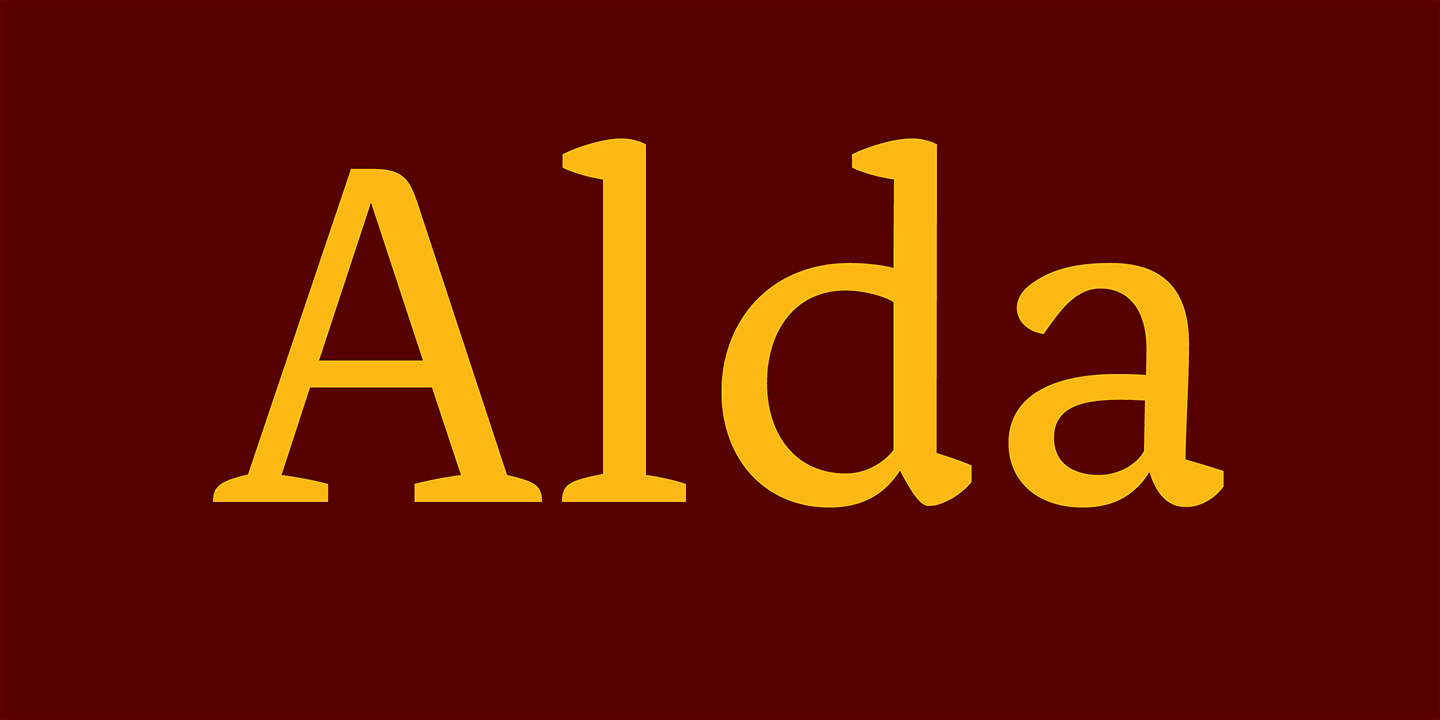
Alda Font is ideal for sophisticated design projects including luxury fashion brands, high-end beauty salons, elegant wedding planners, upscale lifestyle magazines, premium cosmetics packaging, refined hospitality venues, sophisticated event planning, and distinguished lifestyle campaigns. This graceful typeface works perfectly for luxury boutiques, elegant spa resorts, fine jewelry stores, premium skincare brands, and projects that celebrate feminine sophistication and the refined elegance of contemporary luxury living.
What makes Alda Font exciting is its refined feminine character that perfectly captures the essence of sophisticated elegance and contemporary grace. The font features flowing letterforms with delicate curves that reflect the gentle strength and timeless beauty of modern femininity. Its elegant design elements embody the spirit of sophisticated style and refined taste, making it perfect for projects that need to convey grace, sophistication, and connection to luxury lifestyle culture. The carefully crafted elegant proportions create an atmosphere of feminine sophistication and luxury authenticity.
Alda Font comes in multiple family variations including elegant, sophisticated, graceful, and refined styles. Each weight maintains the distinctive feminine character while offering different levels of elegance intensity and sophisticated presence. The font family includes luxury alternates, elegant ligatures, and sophisticated variations that provide designers with comprehensive options for creating truly graceful and authentically feminine typographic compositions that celebrate luxury excellence.